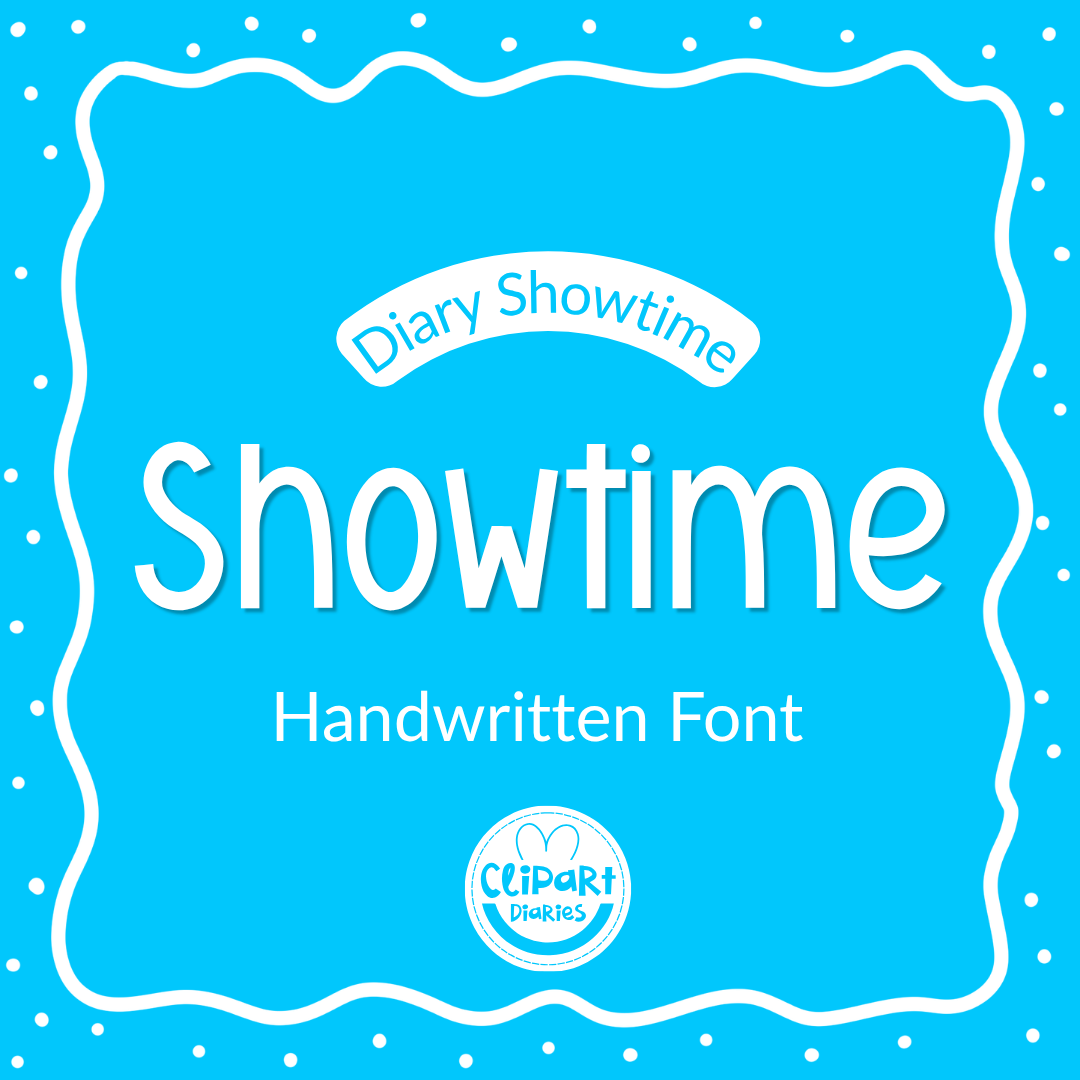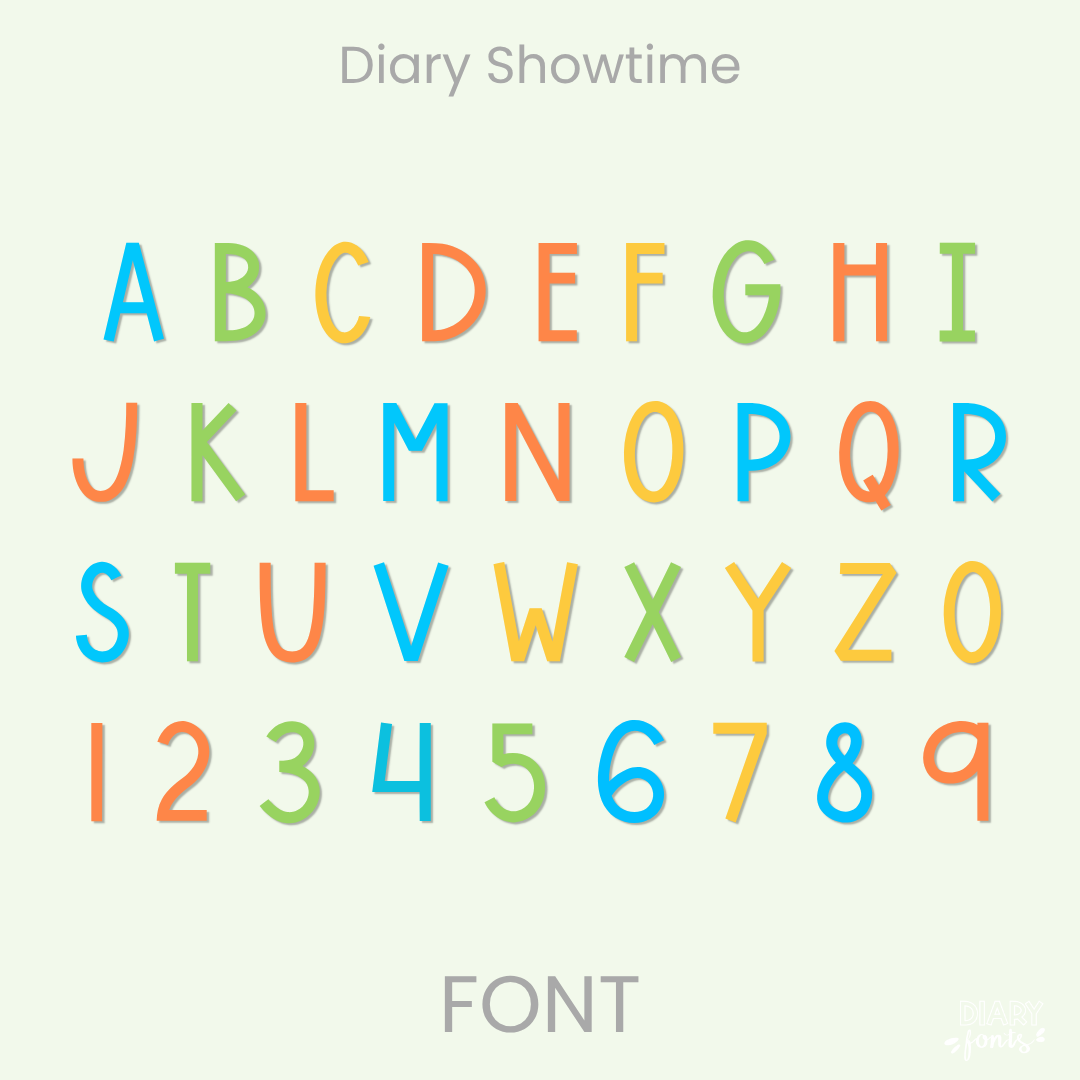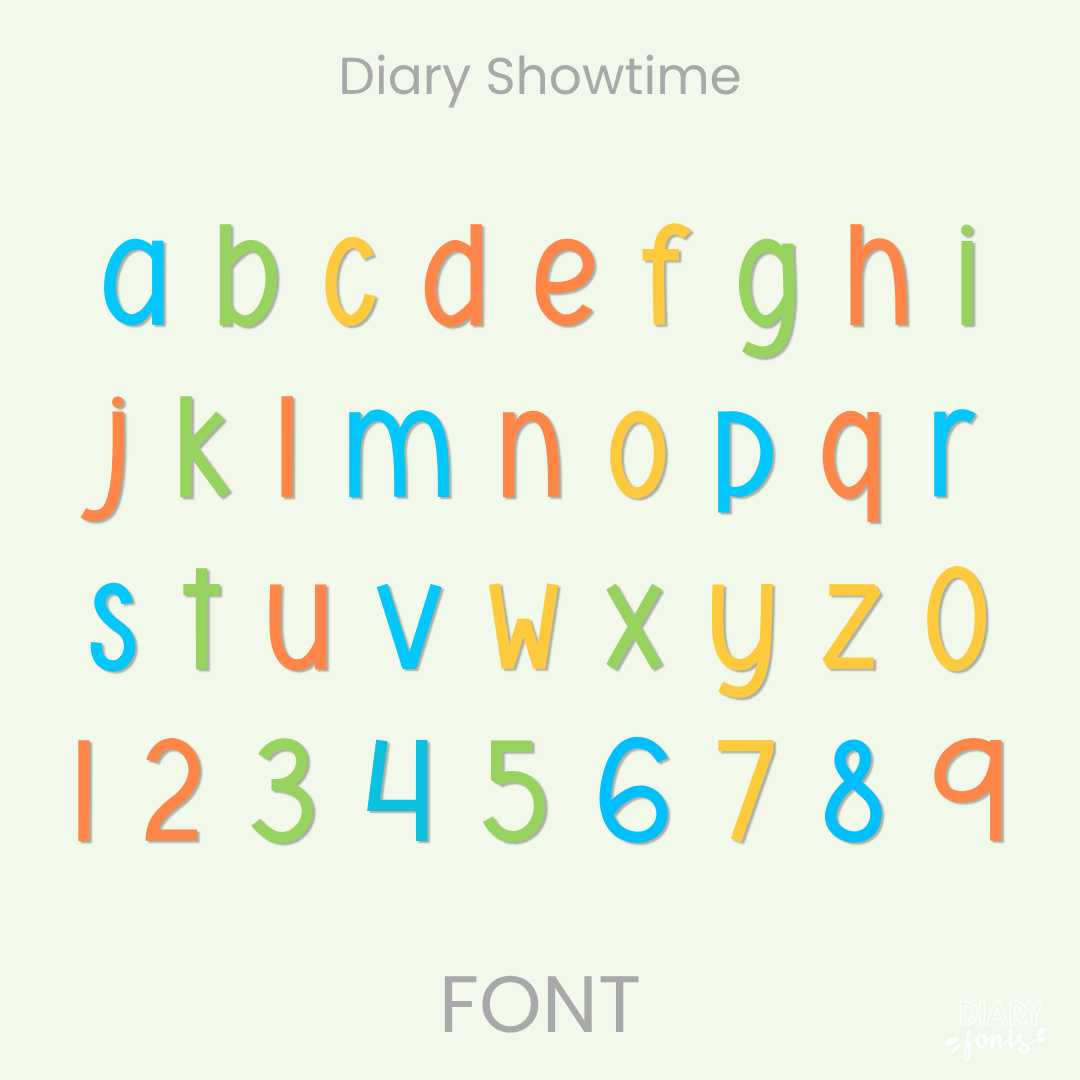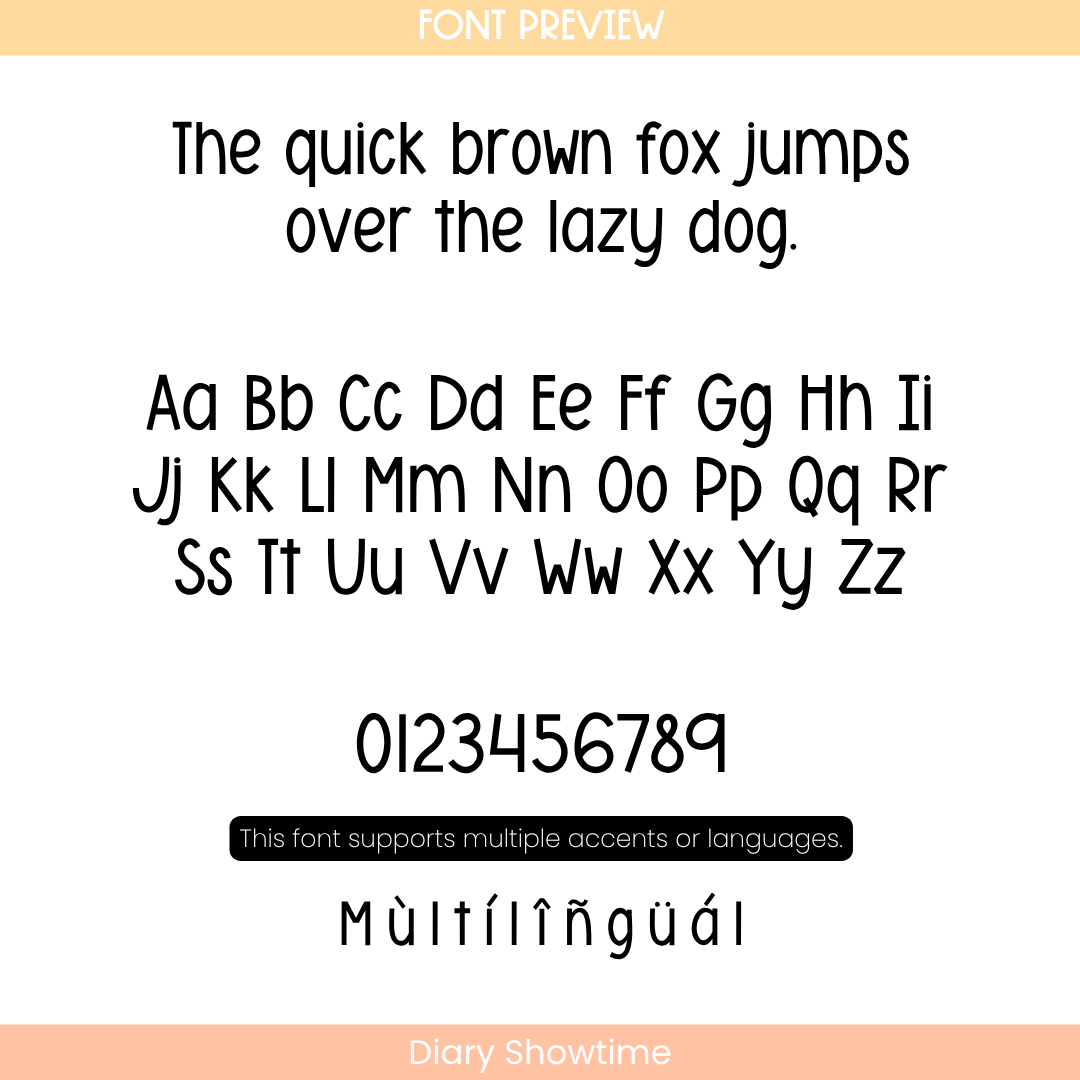
If you’ve been looking for a go-to tall handwritten font that has all the charm of a sweet, neat handwriting style but keeps your text looking incredibly tidy, Diary Showtime is about to become your new absolute favorite. It features a beautifully narrow, elongated character structure with clean, uniform lines that stay perfectly grounded along the baseline. Because these hand-drawn letters are tall and have plenty of generous breathing room between them, it completely eliminates visual clutter, making it an exceptionally clear and legible worksheet typography choice for your sweet students to read and track.
It is the absolute perfect choice for typing up daily reading passages, elementary school worksheets, weekly spelling lists, and clean instructional slide fonts where clear legibility is your top priority. Inside the download, you’ll get a full set of neat uppercase and lowercase letters, matching numbers, and multi-accent marks for complete multilingual support. It drops right into Canva, MS Office, or Adobe on your desktop, and pairs beautifully with Procreate and GoodNotes on your iPad. Whether you’re prepping daily activities for your own sweet classroom or designing fresh new commercial-use educational resources for your online teacher shop, this narrow display heading font adds a touch of confident, friendly style to your creative toolkit.